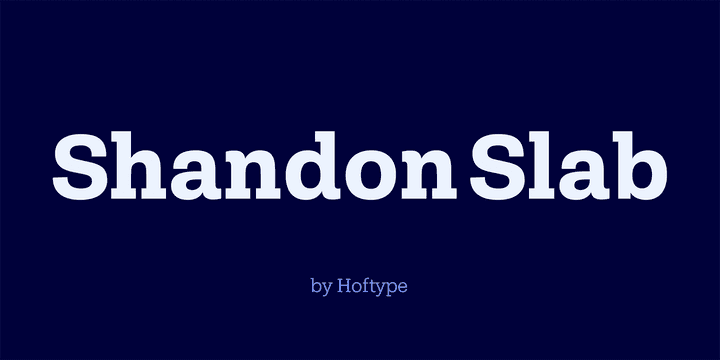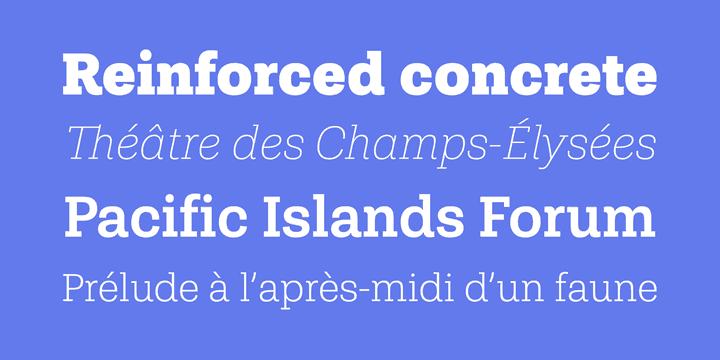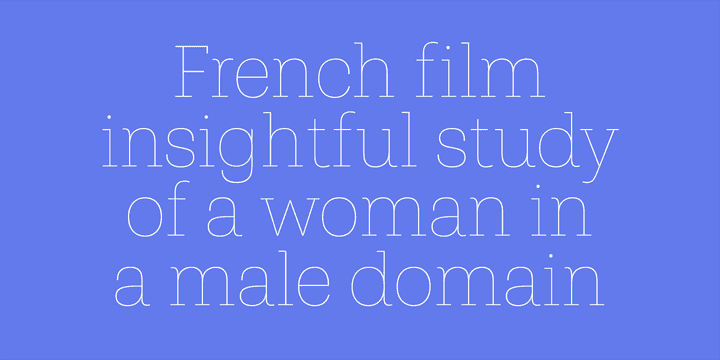
Shandon Slab introduces a new shade to the family of serif-dominant typefaces, which is quite popular. The Zinfandel is an unmistakable grape with its slightly flowing features which distinguish it from most of the other species in this category. The italic styles that are in the opposite to each other also contribute their accent as well. Shandon Slab is perfectly suited for editorials, titles, and other eye-catching text applications. The Shandon Slab family has 18 styles.